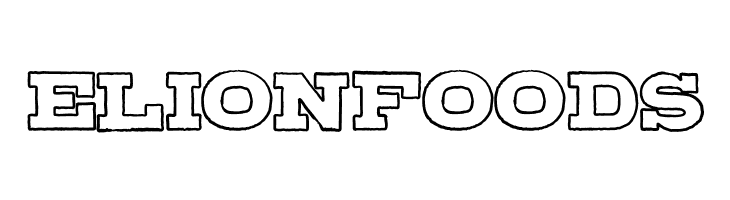
( Fonts by Bumbayo Font Fabrik - bumbayo.blogspot.com )
A bold, outlined font with a modern, eye-catching design.
( Fonts by David Kerkhoff - www.hanodedphotography.com )
A bold, distressed font with a paint-splattered, grunge style.
( Fonts by billyargel.blogspot.com - Billy Argel )
A bold, distressed font with a gritty, urban aesthetic.
( Fonts by www.junkohanhero.com )
A bold, distressed font with a cut-out, ransom note style.
A bold, grungy font with a distressed, textured style.
( Fonts by Mans Greback - www.mawns.com )
Bold, graffiti-inspired font with angular, geometric shapes and a 3D effect.